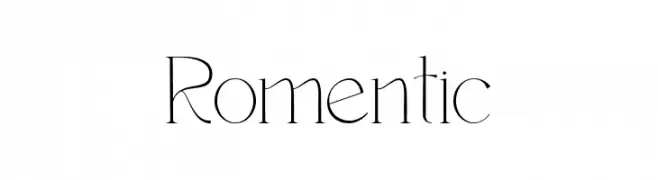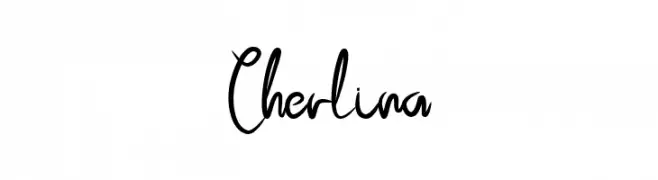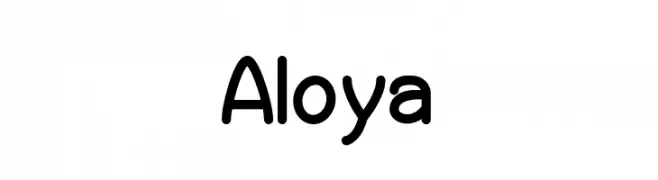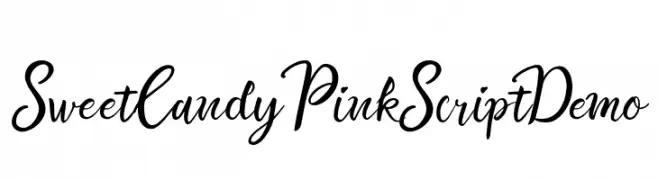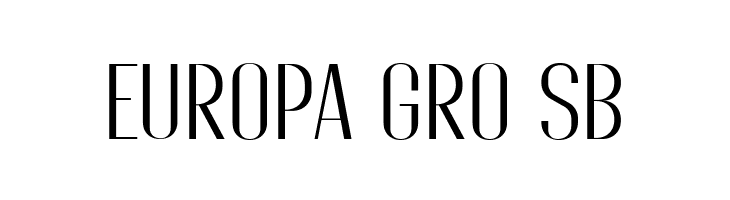
An elegant, flowing script font with delicate, intricate letterforms.
An elegant and whimsical script font with flowing, interconnected letterforms and ornate flourishes.
An elegant and refined font with high contrast and elongated strokes.
A dynamic and fluid script font with elegant, flowing letterforms.
A playful, rounded font with smooth curves and a friendly appearance.
An elegant script font with flowing curves and intricate swirls.
A graceful, flowing script font with elegant, thin strokes and a dynamic slant.
A classic serif font with modern elegance and balanced proportions.
A lively and expressive handwritten font with fluid, artistic letterforms.
An elegant script font with flowing, ornate characters.